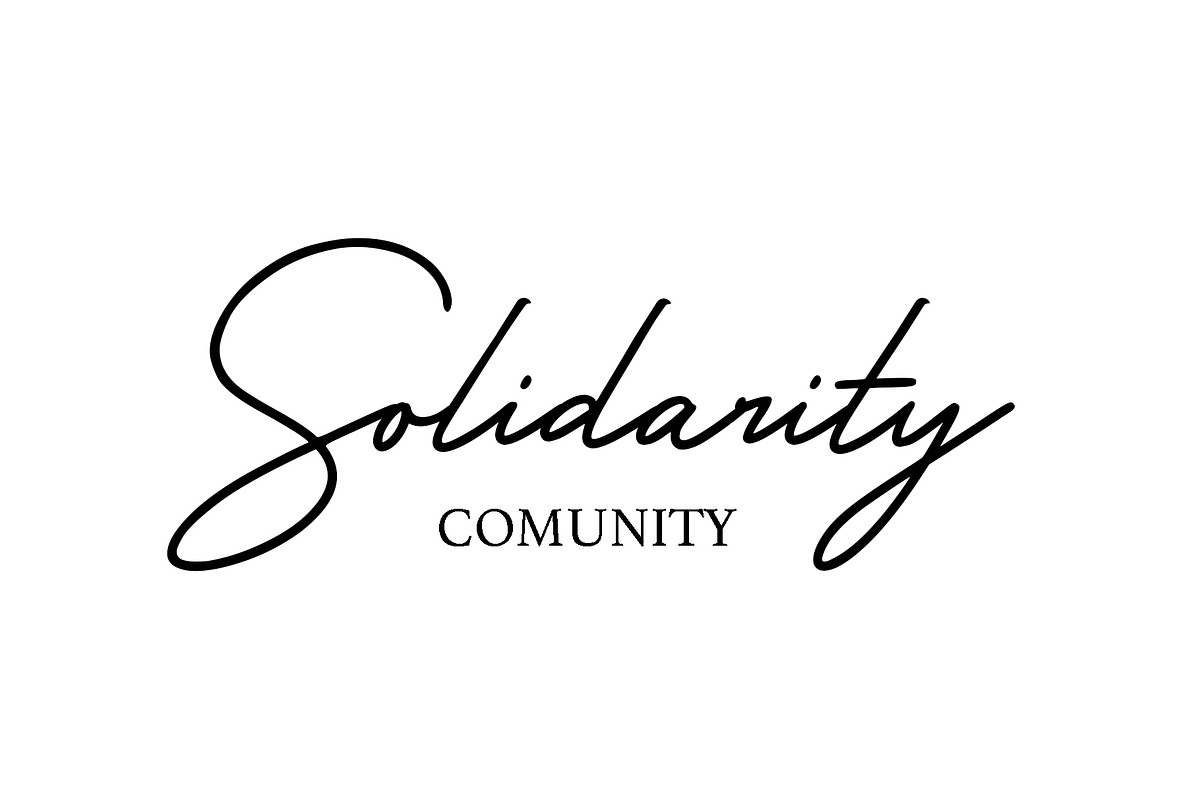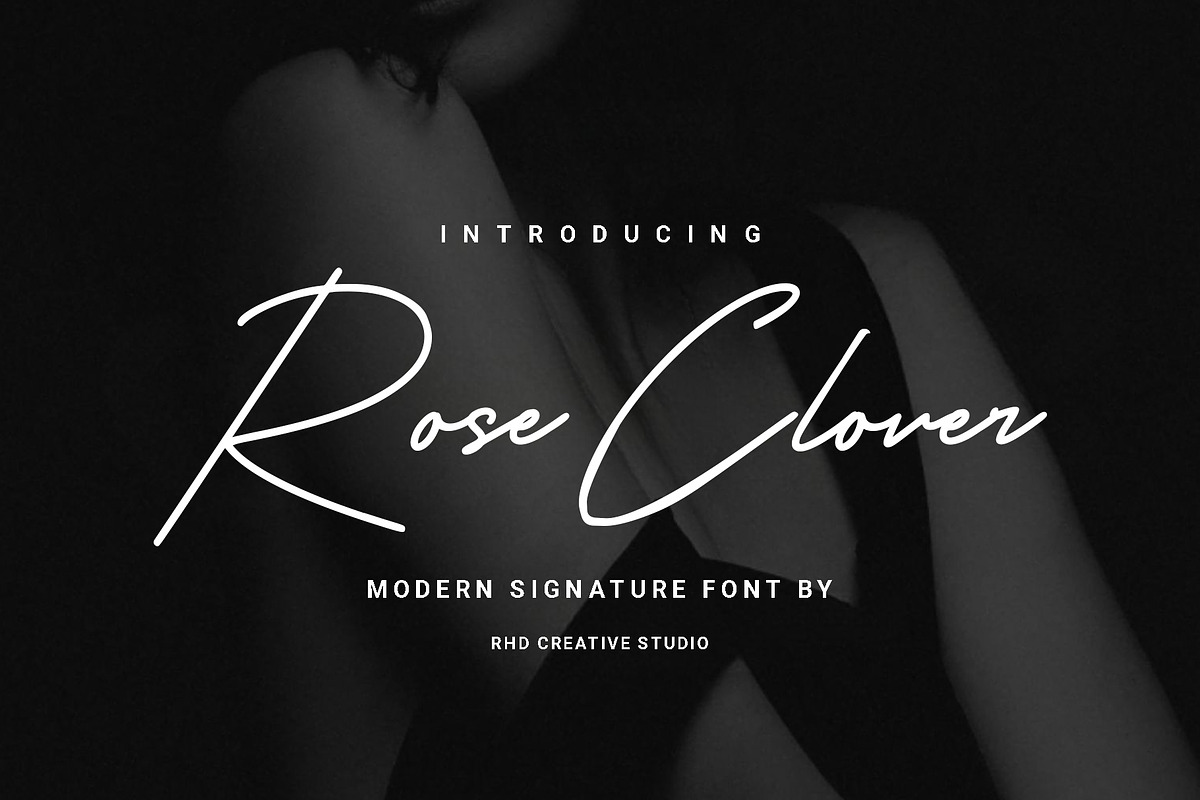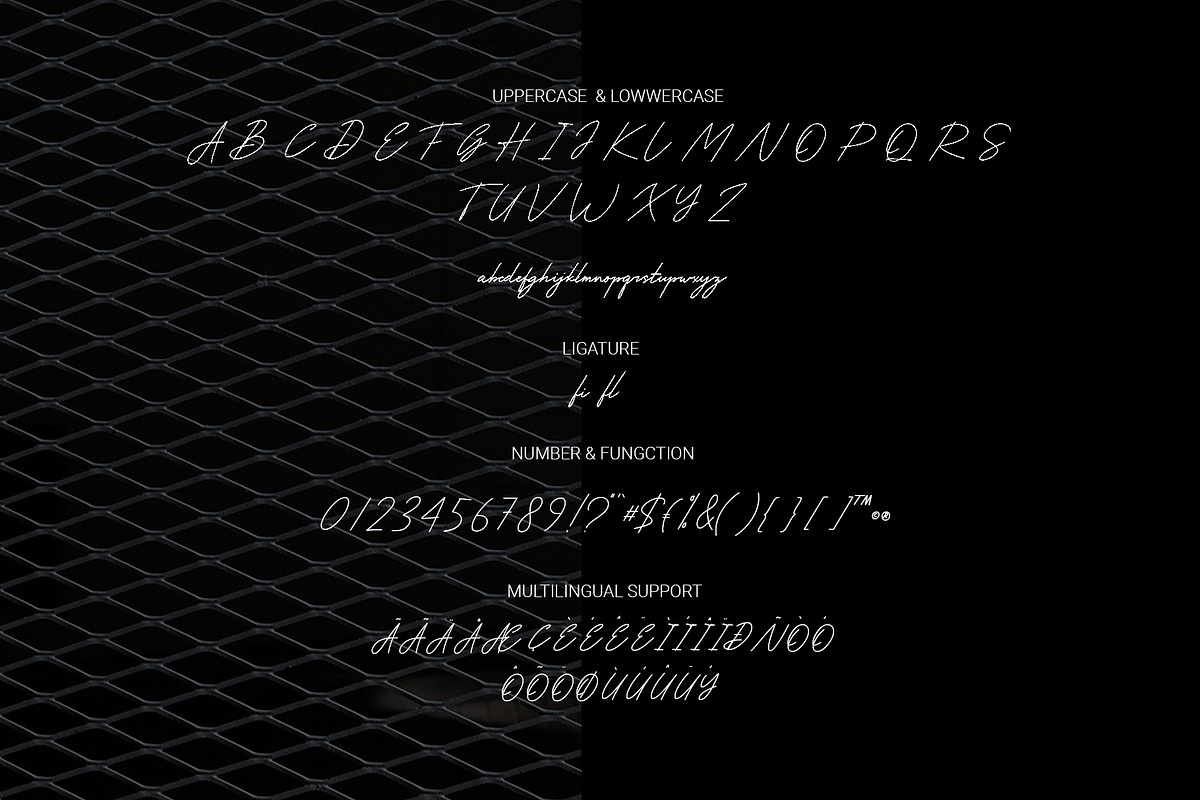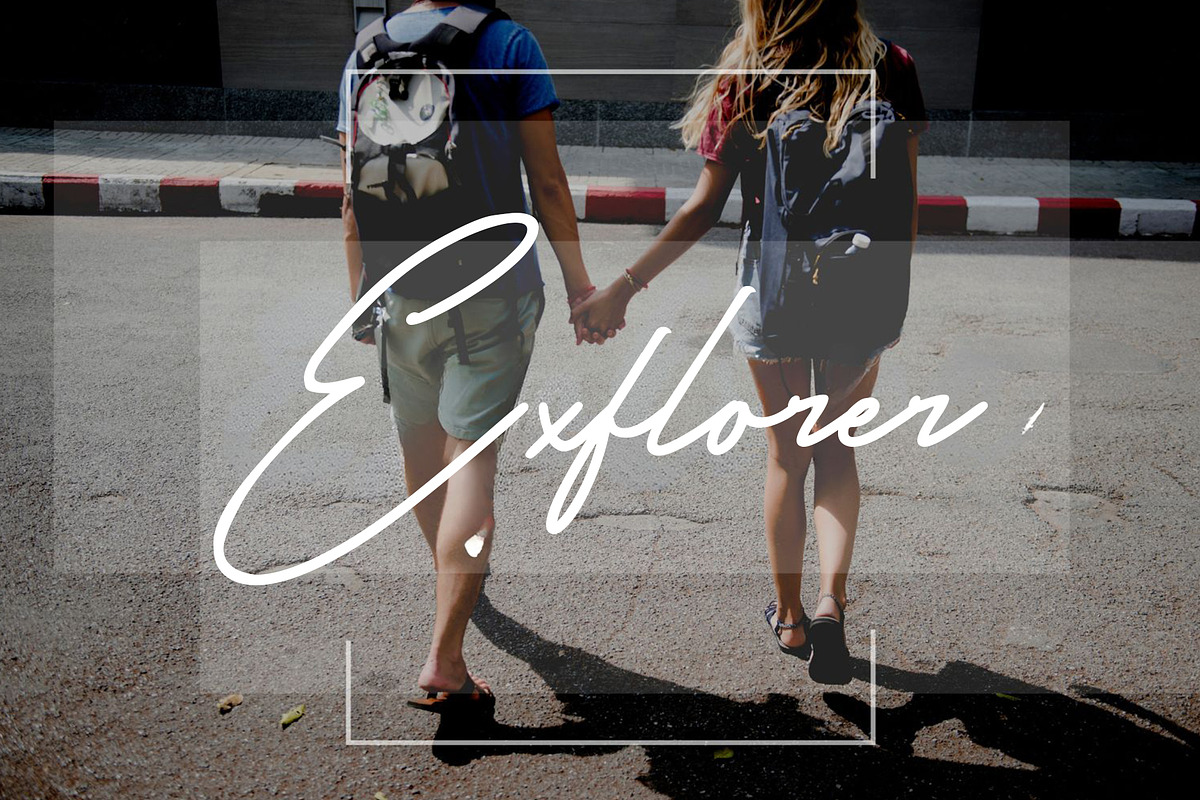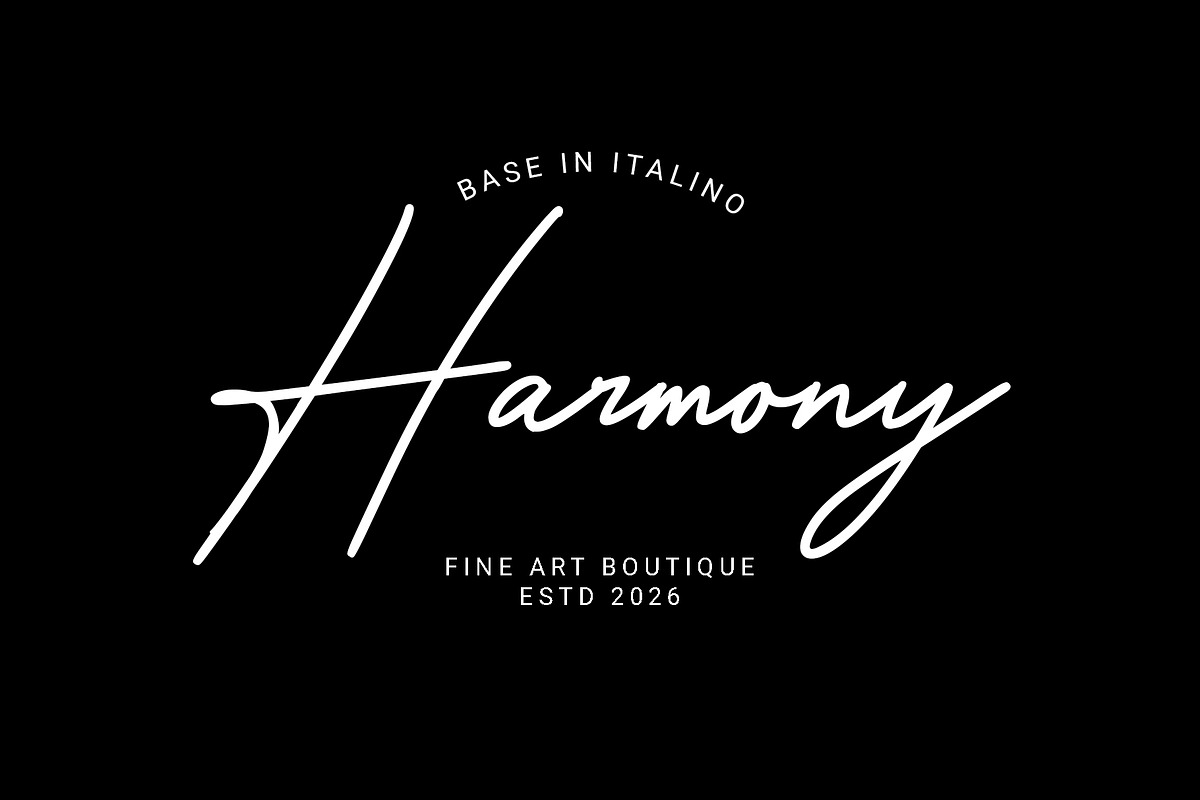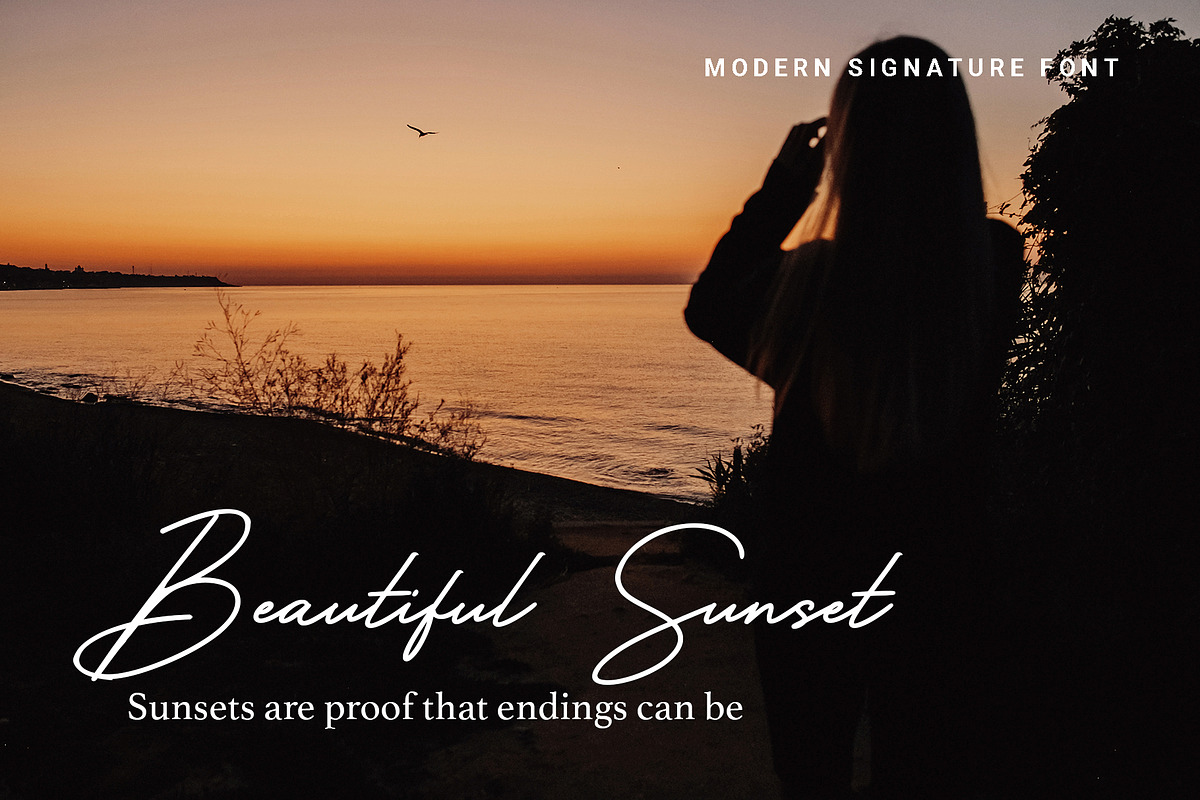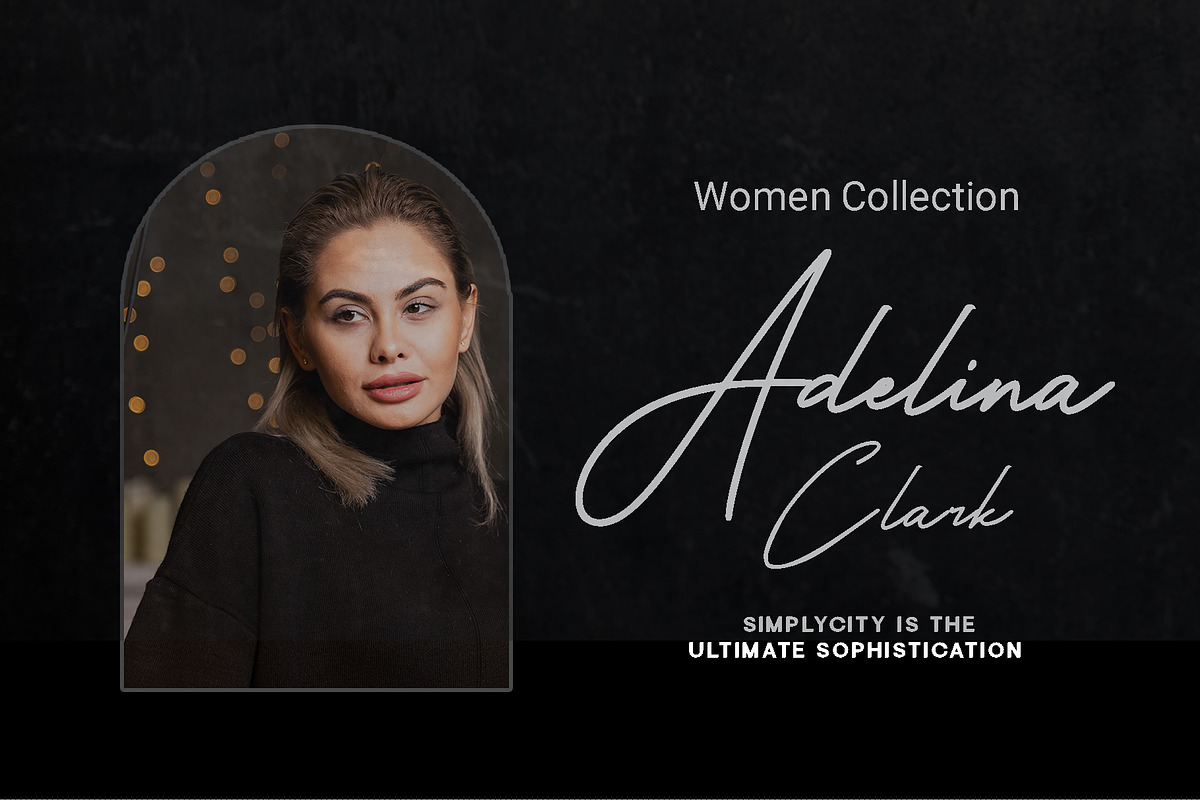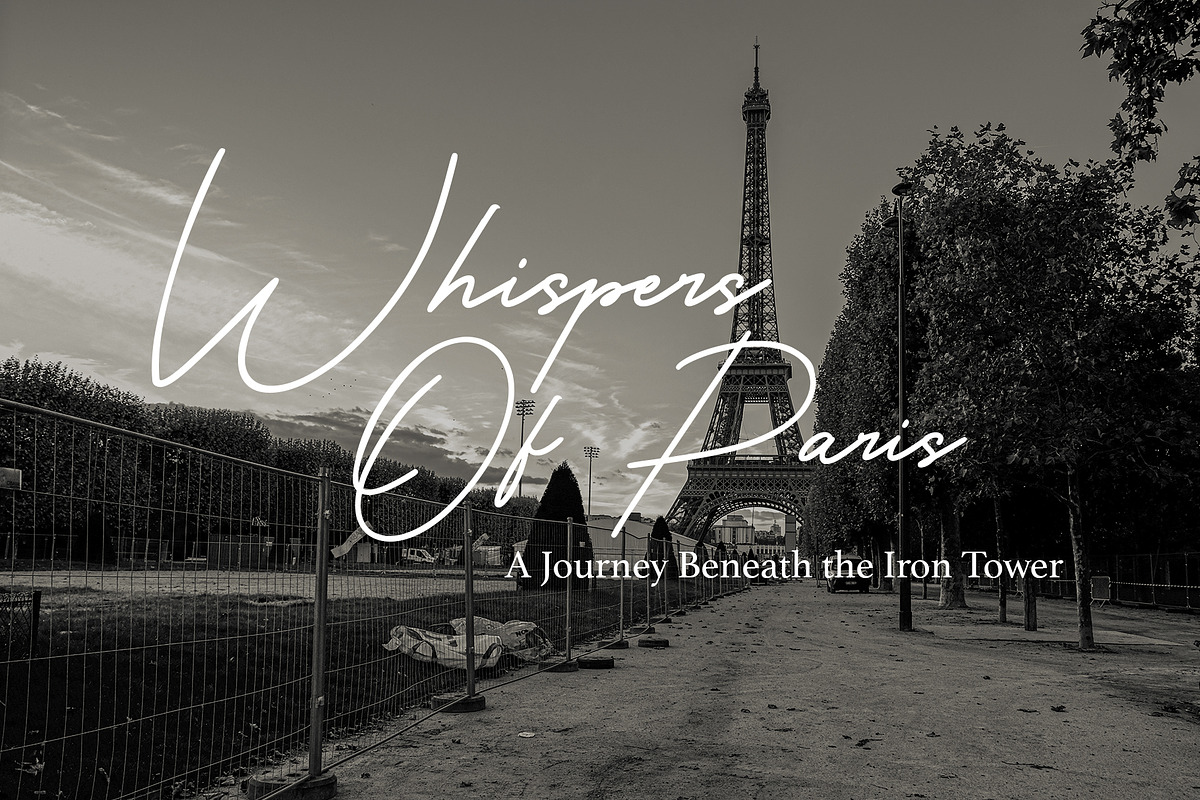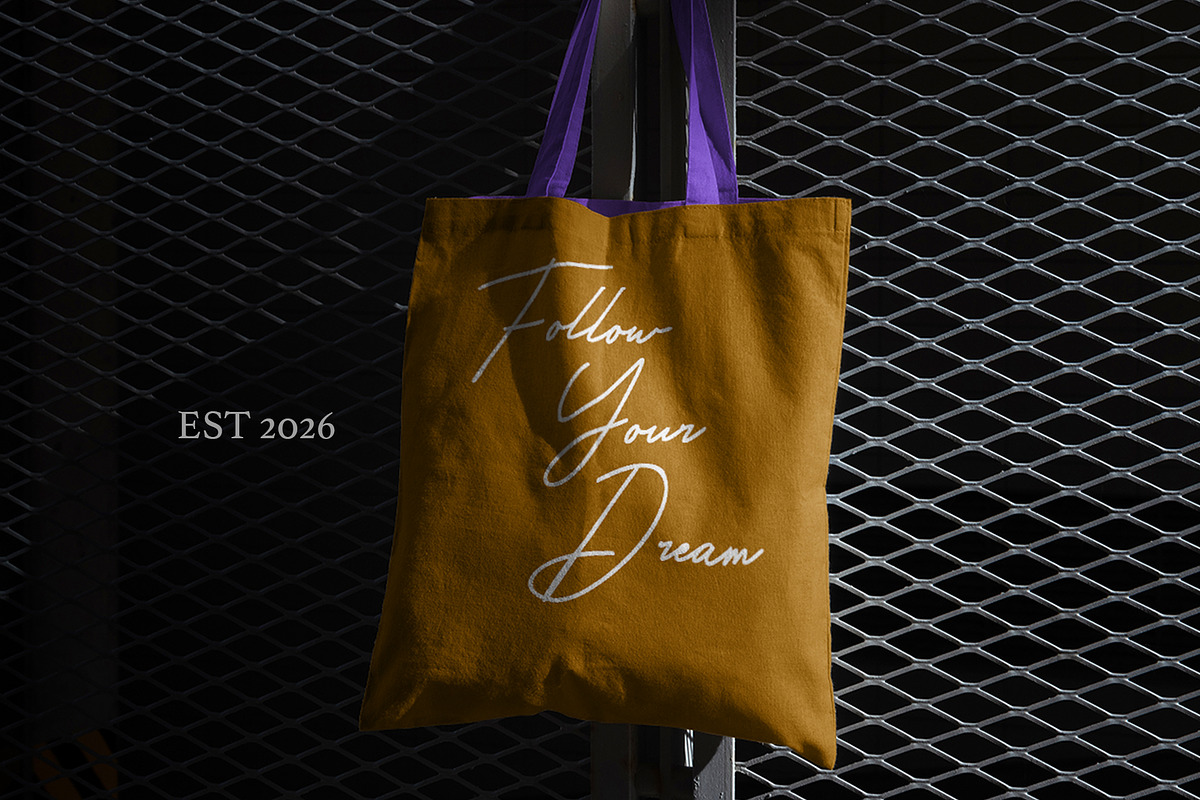
Rose Clover - Modern Signature Font
Hello everyone, I would like to introduce Rose Clover - Modern Signature Font.
Rose Clover - Modern Signature Font with Handmade character. Rose Clover - Modern Signature Font, Modern font to make your design project stand out! Rose Clover a perfectly choice for any creative endeavor, creating, chic, modern,lifestyle design such as logotype, title, cover, branding, invitations, wedding designs, display and magazine, social media posts, advertisements, printed quotes, product packaging, corporate brand, product designs, labels, photography, watermarks, special events and any other project with modern touch.